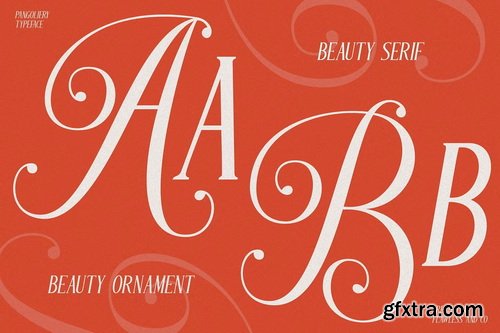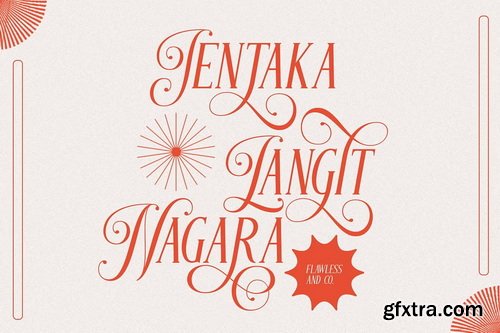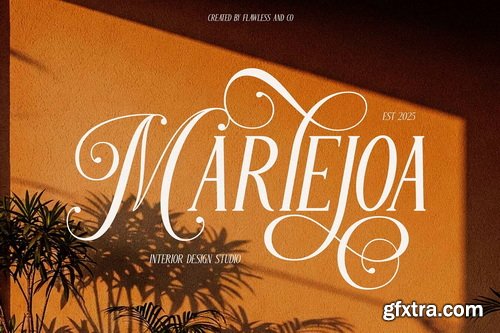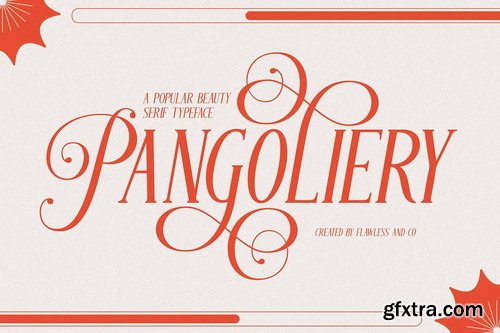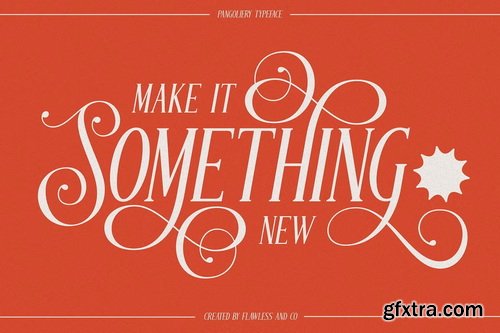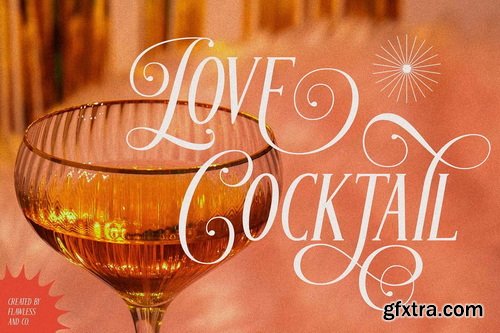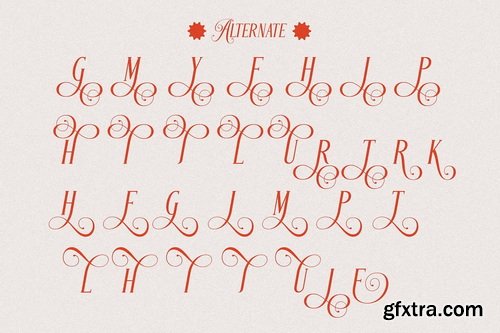
Pangoliery is a refined serif typeface that captures the essence of beauty, elegance, and modern femininity. Inspired by classic typography with a fresh, contemporary twist, Pangoliery features soft curves, stylish contrast, and graceful proportions that bring a polished, editorial look to any design. Perfect for branding, beauty packaging, social media graphics, magazine titles, and elegant logos, Pangoliery adds a sophisticated yet approachable feel to your layouts. Each letterform is thoughtfully designed to balance timeless style with expressive character, making your typography feel both luxurious and current. The font includes elegant alternates and custom ligatures, offering creative versatility and refined detail to elevate your compositions.
Features
- Uppercase & Lowercase
- Alternates & Ligatures
- Numerals & Punctuation
- Multilingual Support
- Use Pangoliery to create beauty-focused designs with lasting impact and elevated visual style.